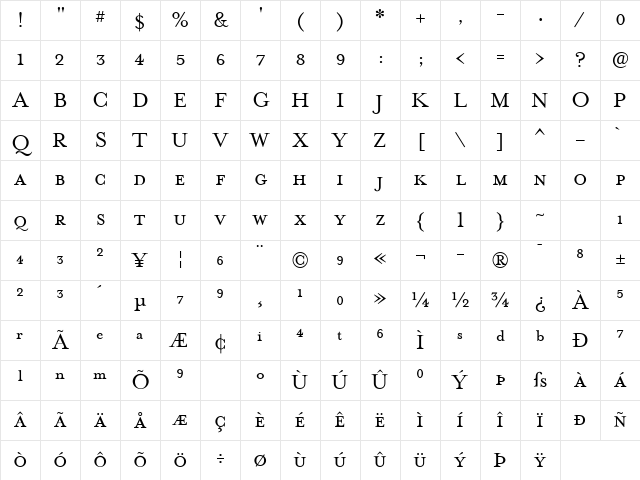
MrsEavesSmallCaps Regular
Foundry: (C) Emigre Graphics, Designed by Zuzana Licko
MrsEavesSmallCaps Family
Design Context for MrsEavesSmallCaps
MrsEavesSmallCaps is a composed and adaptable typeface that performs quietly and consistently across a wide range of design contexts.
Who designed the MrsEavesSmallCaps Regular font?
This font was published by (C) Emigre Graphics, Designed by Zuzana Licko. Check the technical specs section for copyright and designer details.